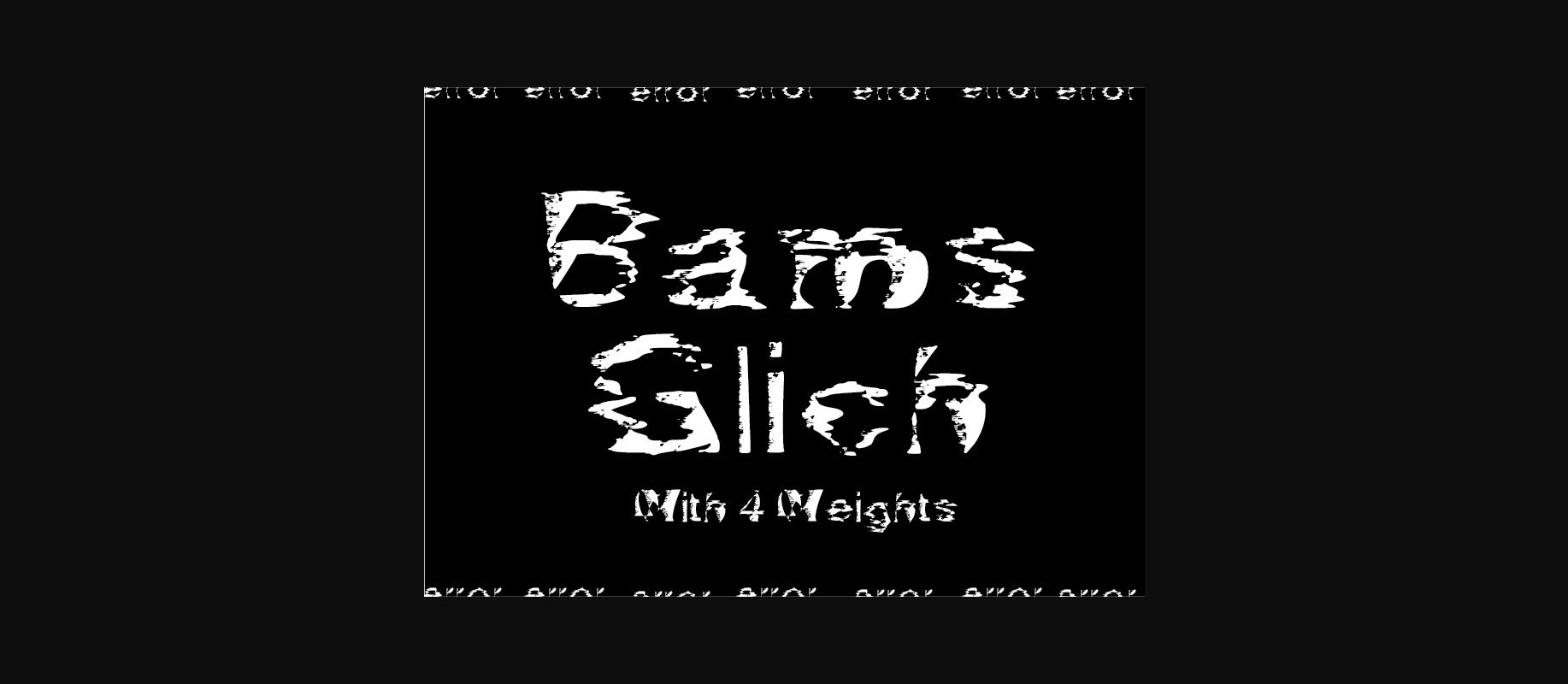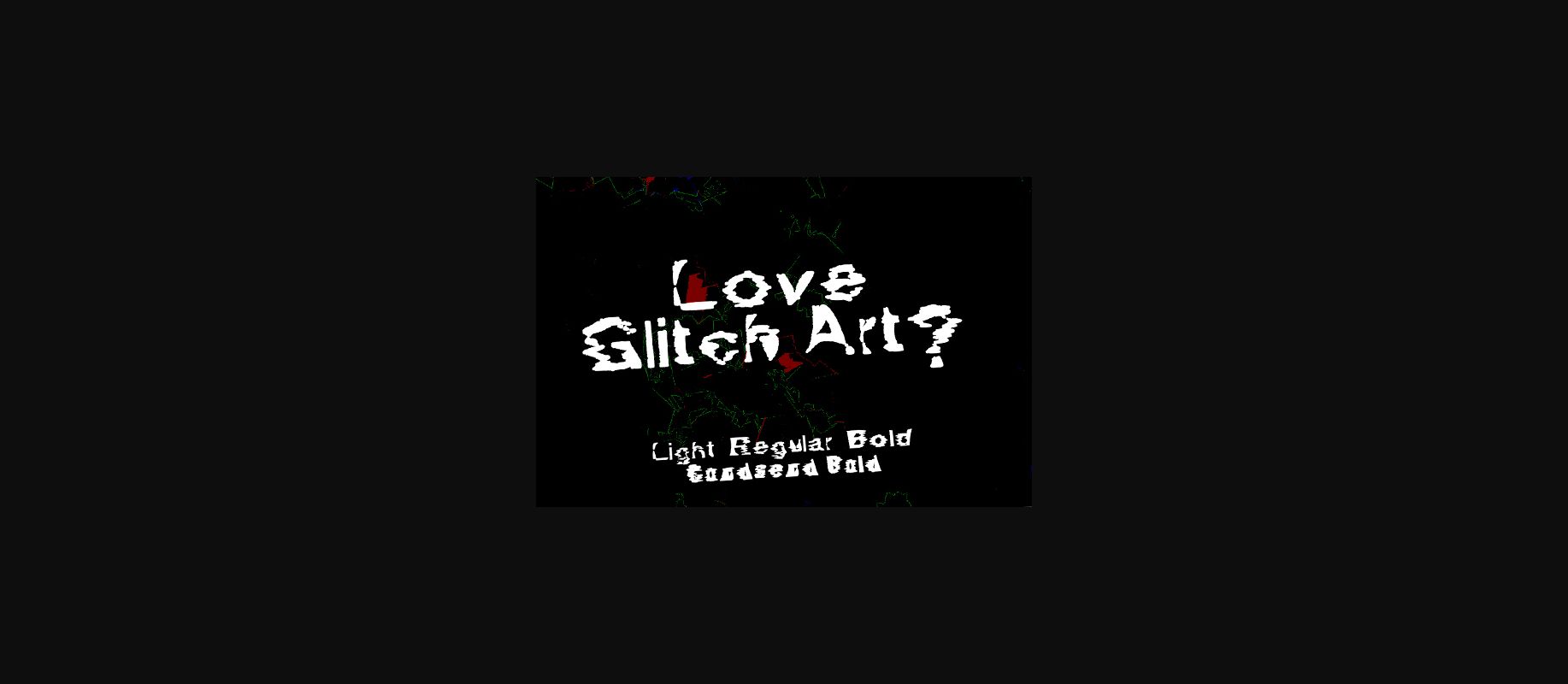
Bams Glitch Font
About Bams Glitch Font
Who doesn’t like Glitch Art? To celebrate everything glitchy here is a font to match your lovely artwork. Use the whole family of Light, Regular, Bold and Bold Condescend to create an even better looking modern messed up design piece.